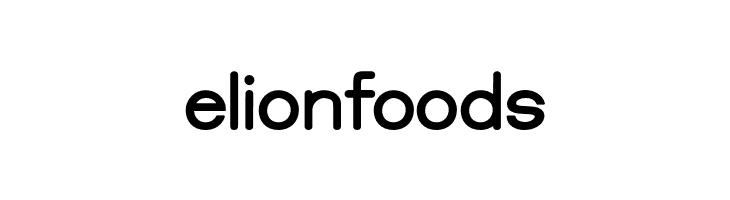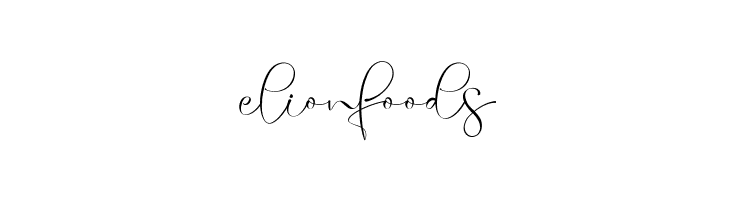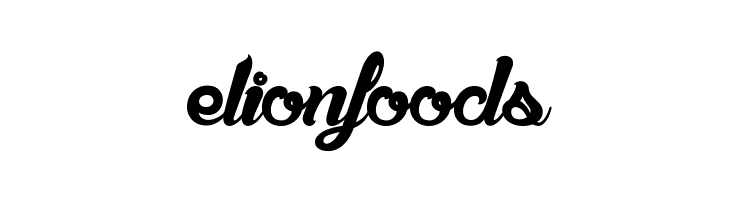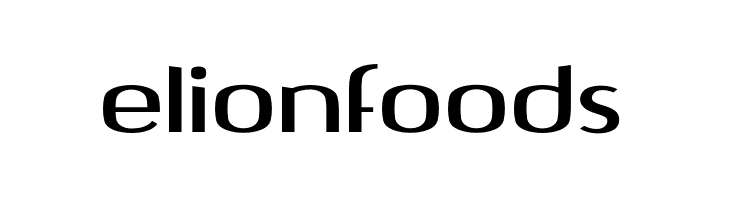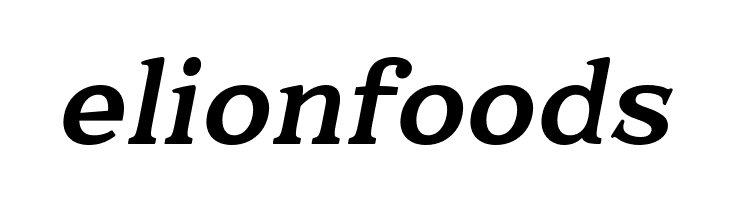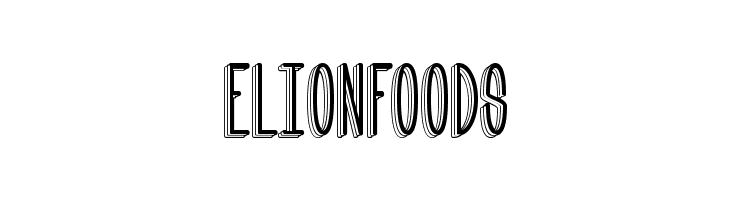
A sleek, modern italic font with smooth curves and a consistent slant.
A modern, rounded sans-serif font with uniform stroke width and excellent readability.
A bold, elegant script font with ornate swashes and flowing curves.
A bold, decorative script font with elegant loops and swirls.
An elegant, flowing script font with smooth, cursive strokes and artistic flair.
A refined and elegant script font with flowing, cursive letterforms and high contrast strokes.
A bold, decorative font with a three-dimensional shadow effect.
A modern, geometric font with clean lines and a balanced structure.
A bold, geometric font with sharp angles and clean lines, perfect for modern designs.
A bold, italicized font with a modern yet classic style.